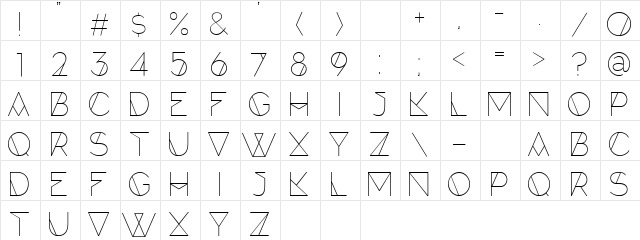
Forte Line Free Font
Forte Line
Style: Line
Foundry: PYRS Fontlab Ltd. / Made with FontLab
Designer: Kritzmire, Paul
Design Context for Forte
Forte is a composed and adaptable typeface that performs quietly and consistently across a wide range of design contexts.